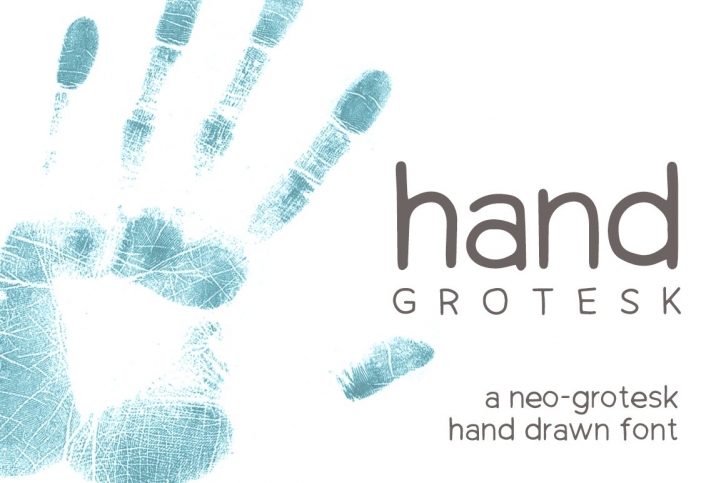
Hand Grotesk is a hand drawn font in a neo-grotesk style.
It’s fun, with structure.
Its look and function work well for branding, packaging & editorial design.
Regular and bold.